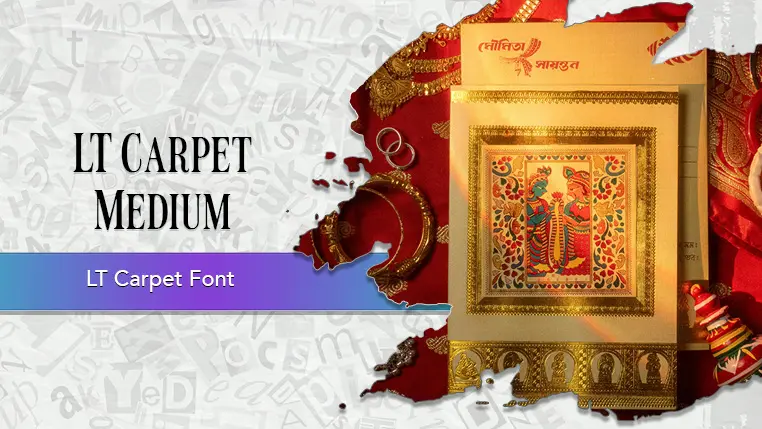
The LT Carpet font family may be ideal for you if you enjoy working on an artistic design project. The lively, expressive look of this typeface, which was created by LyonsType, makes it ideal for Artistic and Decorative Purposes. Its distinctive style can be used to create unique logos or brand marks for businesses that want to convey a sense of elegance, history, or craftsmanship. The font's detailed and unique design makes it perfect for creating eye-catching headlines for posters, book covers, and event invitations. and other light-hearted visual projects.
Medium, Gradient Medium, Shadow Medium, Medium are the four primary font styles of the LT Carpet font family. You may build dynamic, visually appealing text layouts with the distinct flair that each style offers. With crisp, readable lines and a relaxed tone.